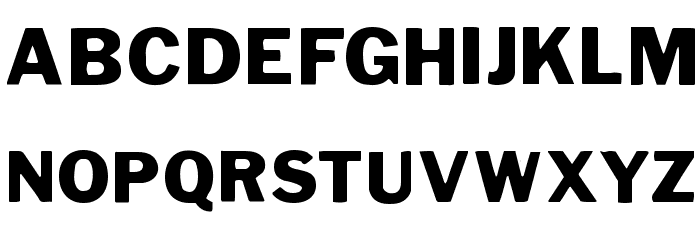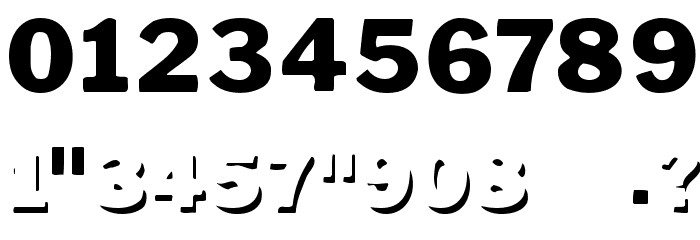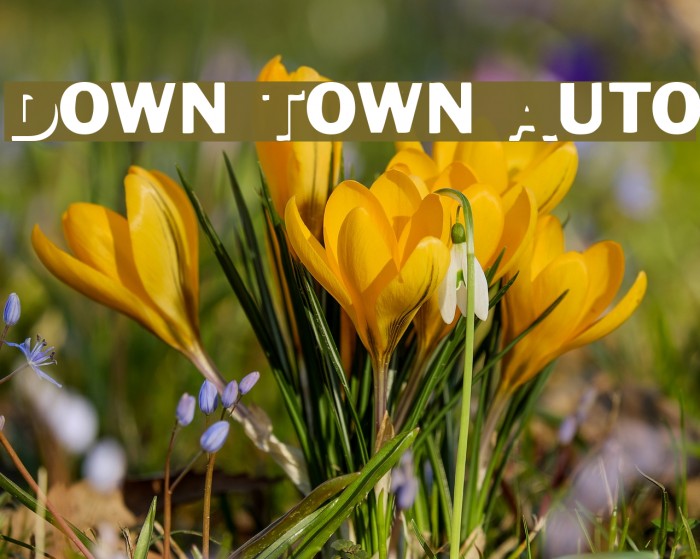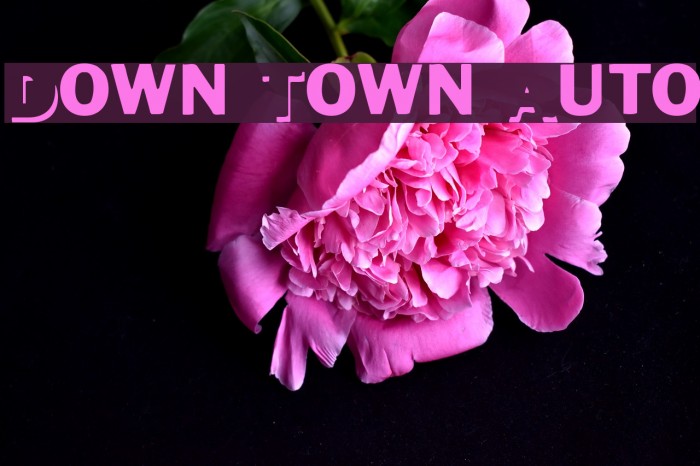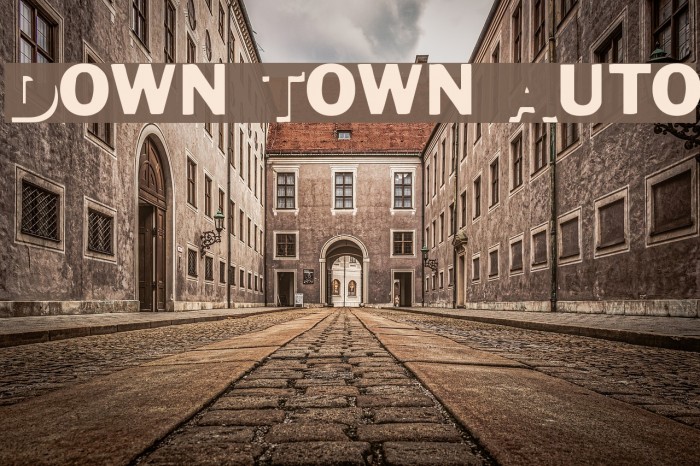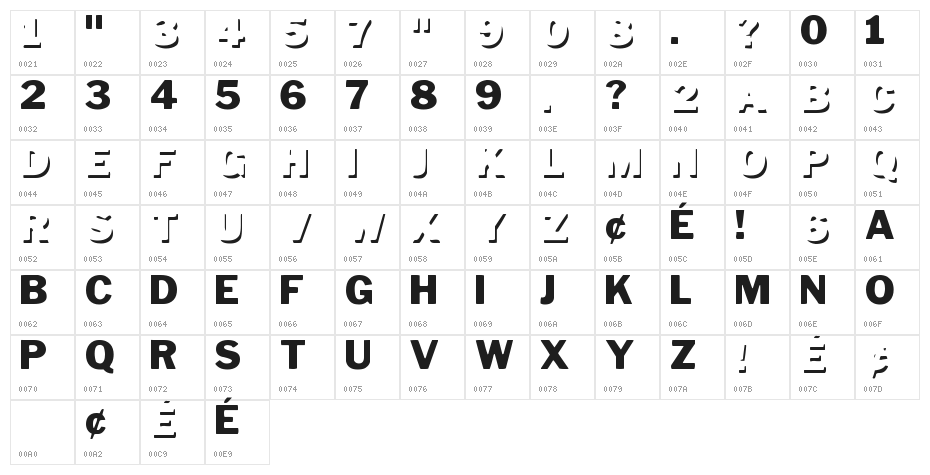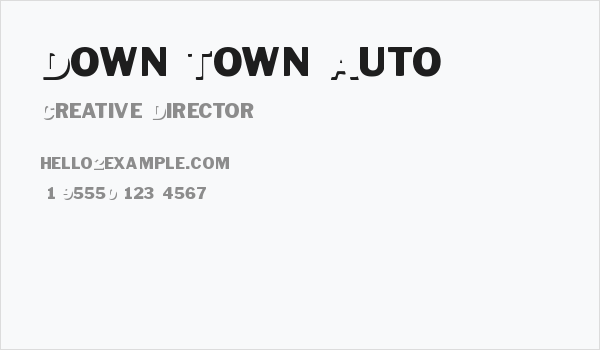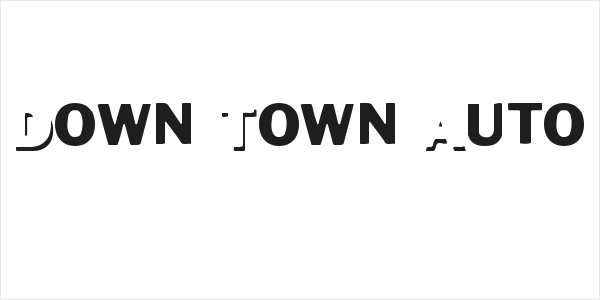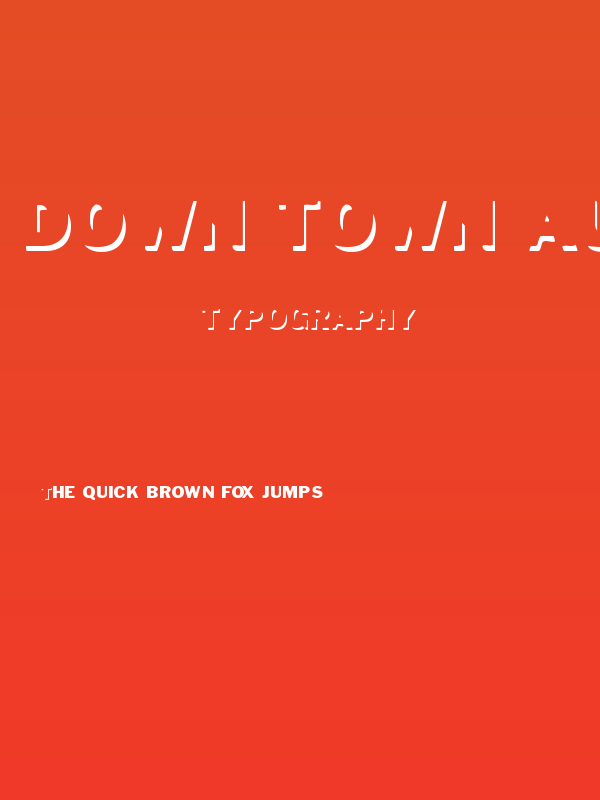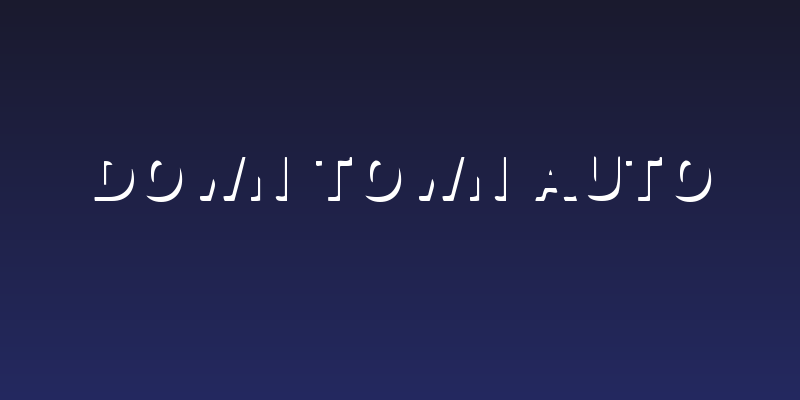
Down Town Auto Font
This font features a bold and impactful design with a strong presence, ideal for making statements. The uppercase letters are solid and robust, conveying a sense of strength and authority. The numbers are equally bold, ensuring they stand out in any context. The special characters are designed to complement the overall boldness, maintaining consistency across all glyphs. This font is perfect for projects that require a commanding and assertive typeface, such as branding, advertising, and signage.
A bold and impactful font with a strong, authoritative presence.
- Proposed Projects: Ideal for branding, advertising, signage, and any project requiring a strong, bold typeface.
- Category: Sans-Serif
- Use Case: Headlines, Logos, Signage